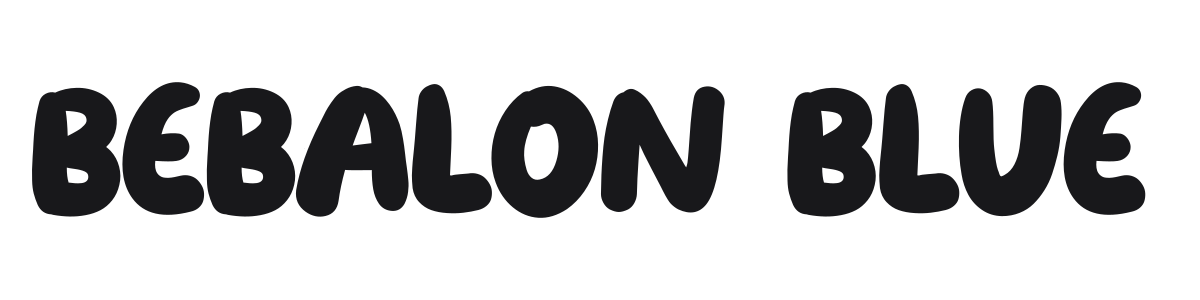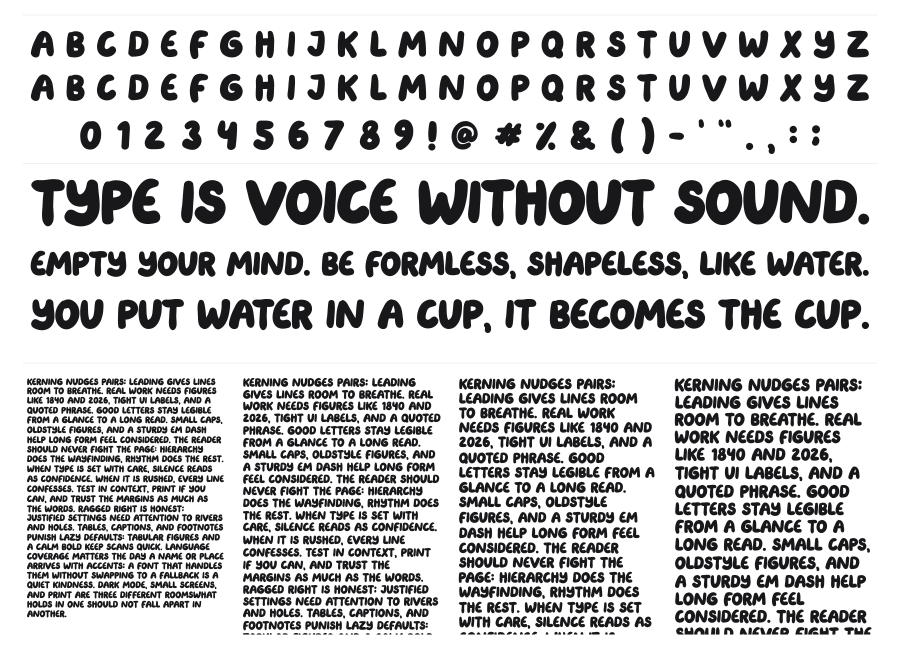
Bebalon Blue
Bebalon Blue is a heavy, balloon-style rounded sans that leans fully into its bubbly, comic-book personality. Every stroke is thick and inflated, with rounded terminals that give it a warm, approachable energy. It works well for children's content, game titles, food packaging, and anything that needs an upbeat, fun-first impression.